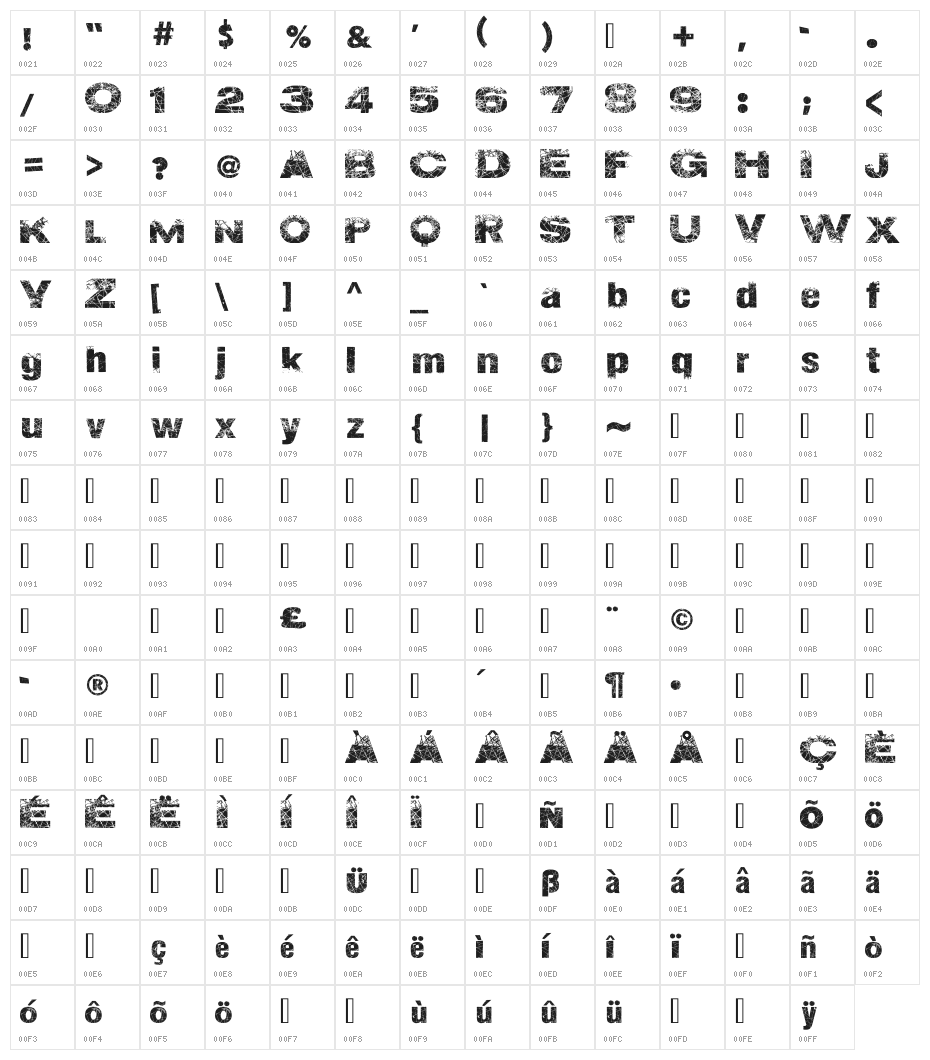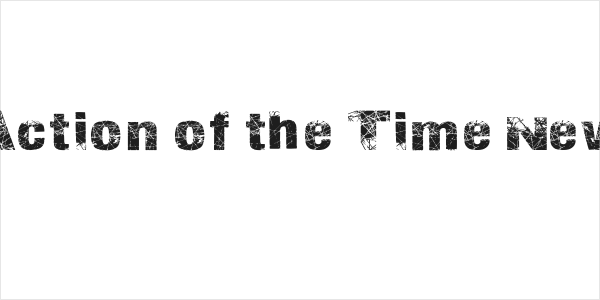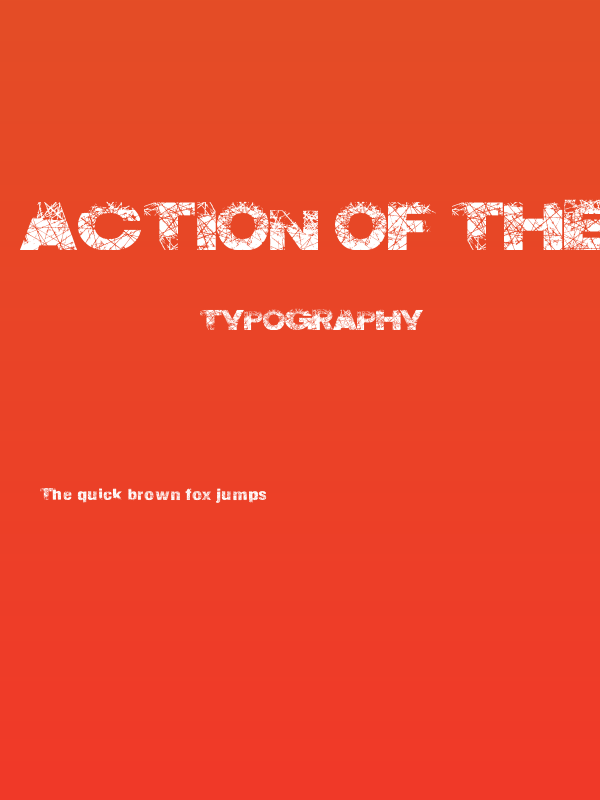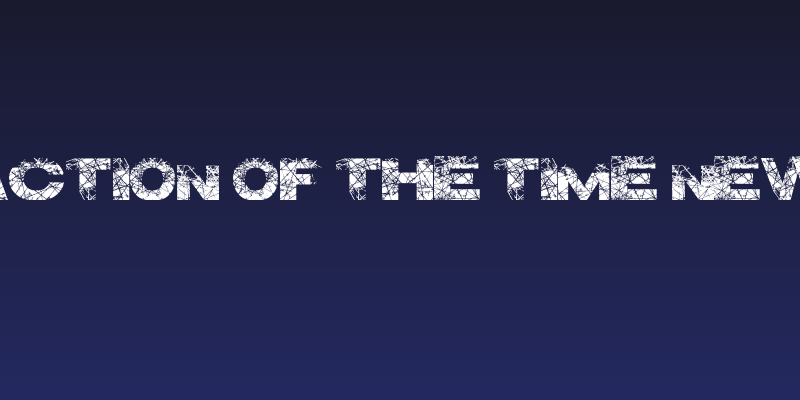
Action of the Time New Font
Action of the Time New Description
This font features a bold, distressed style with a textured, grunge appearance. The characters are filled with a pattern that resembles scratches or chaotic lines, giving it a rugged and edgy look. The uppercase and lowercase letters maintain a consistent thickness, while the numbers and special characters follow the same design pattern. This font is highly decorative and stands out due to its unique, rough texture, making it ideal for projects that require a strong visual impact.
| Proposed Projects | Ideal for album covers, posters, urban-themed designs, and any project needing a bold, edgy aesthetic. |